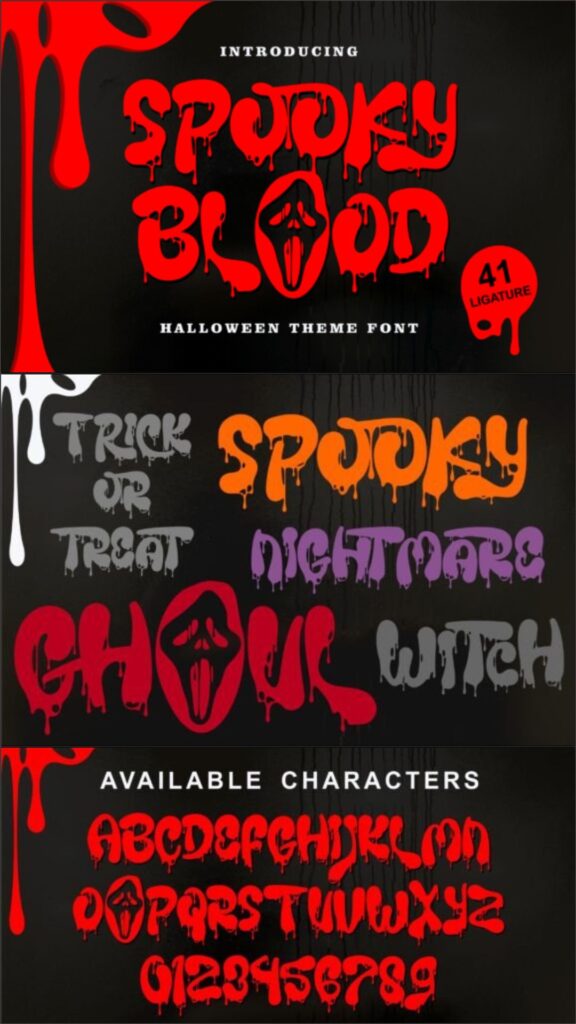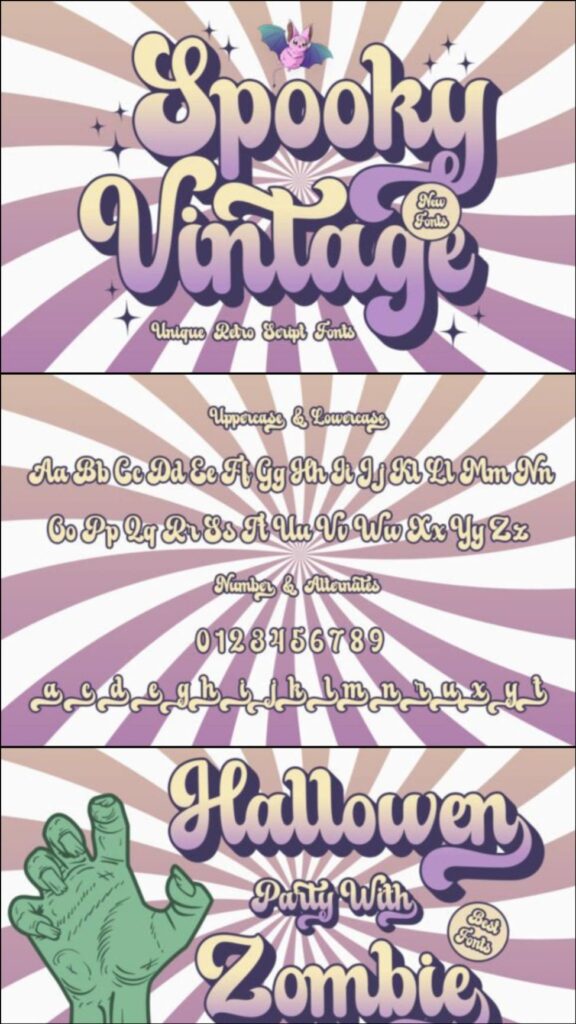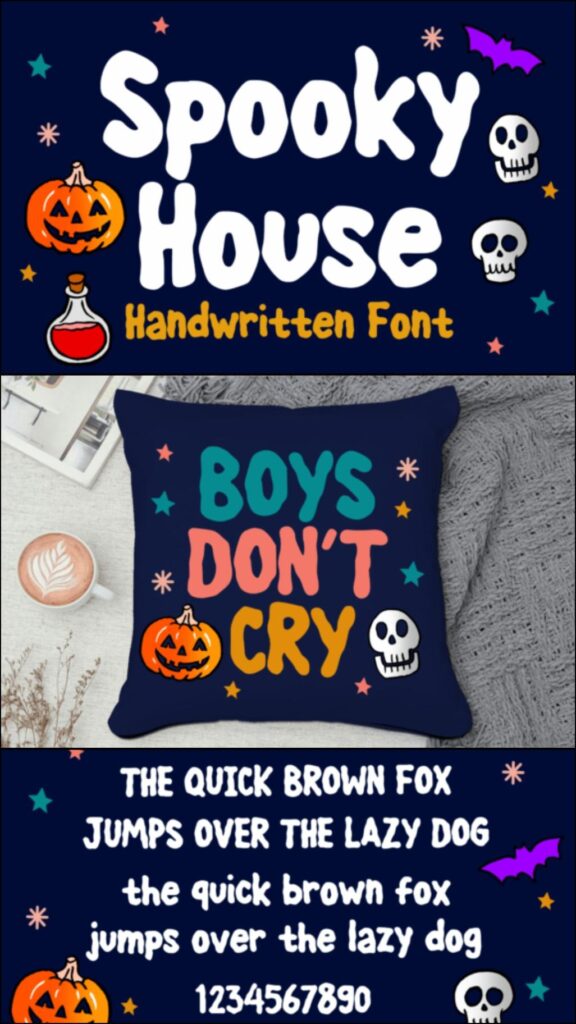
Chunky Halloween fonts give Cricut cuts, Canva graphics, shirts, stickers, and party signs the visual weight they need to stand out. I focused on thick letterforms that remain readable at a glance, create strong silhouettes, and suit projects ranging from cute classroom treats to dripping horror posters.
The best chunky Halloween font is one with bold, connected-looking shapes, clear counters, and enough seasonal personality to set the mood without making the words difficult to read. For Cricut projects, simpler solid letters are usually easiest to weed. In Canva, bubble, retro, distressed, and dripping styles can support more detailed poster and social-media designs.
| Halloween Ghost | Dripping shirts and stickers | Display font |
| Mummy Halloween | Bold kid-friendly headlines | Chunky display font |
| Groovy Halloween | Retro seasonal graphics | Retro display font |
| Spooky Treats | Coordinated party layouts | Display font duo |
| Bubble Halloween | Cute spooky crafts | Bubble display font |
| Blockton Halloween | Large block lettering | Block display font |
| Spooky Blood | Horror-themed designs | Dripping display font |
| Spooky Vintage | Retro posters and apparel | Vintage display font |
| Spooky House | Handmade party signs | Chunky handwritten font |
| Boo Bubble | Treat bags and classroom crafts | Bubble font |
Best Chunky Halloween Fonts for Crafts and Graphics
1. Halloween Ghost
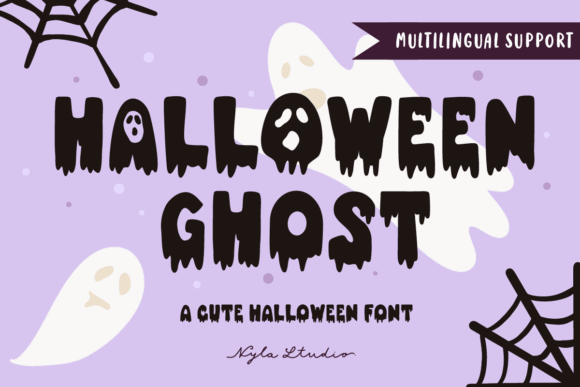
Halloween Ghost is a thick dripping display font for crafters creating spooky shirts, decals, invitations, mugs, and stickers. Its rounded letter bodies keep the words substantial, while the uneven drips establish the Halloween theme before you add any supporting graphics.
I like this one for short phrases that need immediate impact. The hanging details may become delicate at very small cutting sizes, so I would reserve it for medium or large vinyl lettering and use print or sublimation for intricate miniature designs.
Best for: Halloween shirts, party signs, large stickers
Key features: dripping edges, heavy strokes, playful horror style
2. Mummy Halloween
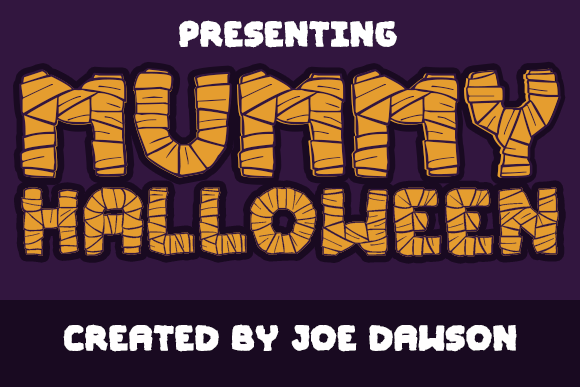
Mummy Halloween is a bold, chunky display font for uncomplicated seasonal headlines and craft phrases. The broad characters make it suitable for designs that must remain readable from across a room, including classroom banners, porch signs, and trick-or-treat apparel.
My take is that its straightforward weight makes it more flexible than a highly illustrated novelty font. Pair it with mummy-wrap graphics or an off-white palette when you want a stronger theme without crowding the letterforms themselves.
Best for: banners, kids' shirts, porch signs
Key features: chunky construction, simple silhouette, strong readability
3. Groovy Halloween
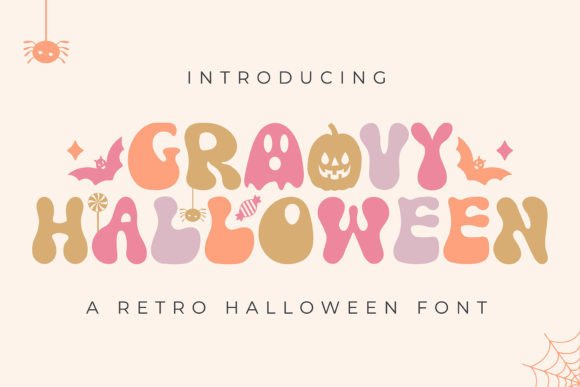
Groovy Halloween is a playful retro display font for designs that mix 1970s curves with spooky-season styling. I would use it for colorful shirts, pumpkin-patch graphics, stickers, and party invitations where friendly nostalgia matters more than genuine horror.
The expressive shapes can carry a layout without many extra decorations, which is useful in Canva. For Cricut work, keep the phrase fairly short so the distinctive curves do not compete when the letters are packed tightly together.
Best for: retro shirts, colorful stickers, party invitations
Key features: groovy curves, bold display weight, playful seasonal mood
4. Spooky Treats
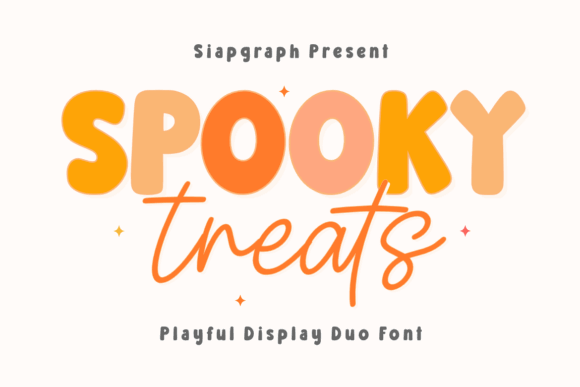
Spooky Treats is a display duo for coordinated Halloween layouts that need both a chunky headline and a casual supporting accent. It is especially useful for invitations, treat-bag labels, menu cards, and shirt designs with a large phrase plus a smaller handwritten line.
I like the built-in contrast because it reduces the need to hunt for a second compatible font. The script component should be used more sparingly in tiny cuts, while the heavier display style can handle the main wording.
What size should a chunky Halloween font be for a Cricut cut?
u003cstrongu003eThere is no single minimum size because each font and material behaves differently, but decorative Halloween fonts usually need more space than plain block lettering.u003c/strongu003e Preview the narrowest gaps, counters, drips, and distress marks at the actual production dimensions rather than judging the design only while zoomed in. For a reliable test, cut one representative word containing curved, narrow, and enclosed letters. Increase the size or simplify the design when small internal pieces lift, tear, or become difficult to weed.